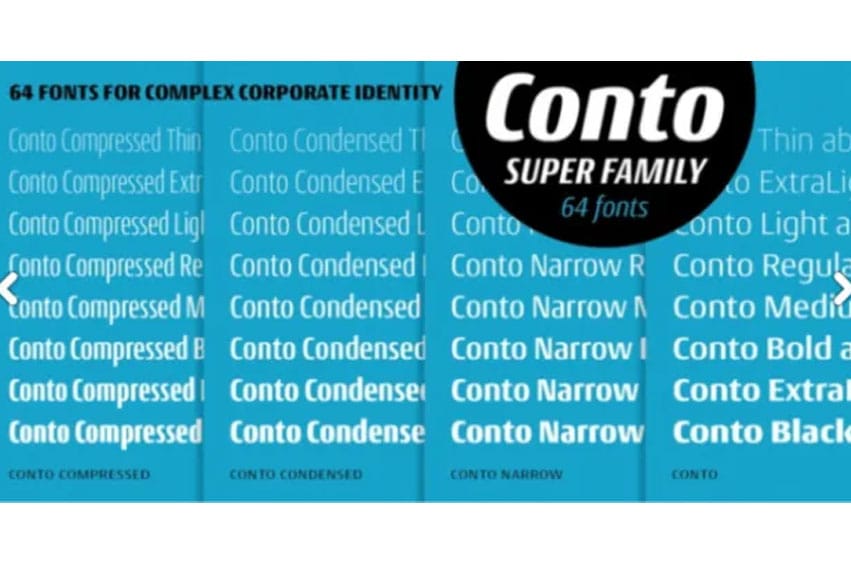
Conto Super Family Font contains 64 Fonts in total. Other Members are Conto, Conto Compressed and Conto Narrow … Conto is a clear and reduced sans serif typeface in eight weights (upright, italic). It is mainly designed for corporate identity along with the editorial design and advertising. A special set of ligatures make the fonts very useful for logo type and lettering.
The elegant Thin and the strong Black weights are working well in display typography, while the Regular, Medium and Bold weights are meant to stay well in text and tables. Main characteristic are the minimalistic and reduced lowercase shapes (a/b/d/g/m/n/p/q/r/u). Another specific feature is the rising contrast. Whereas you can not find any contrast in the Thin weight, you will find more and more contrast while climbing up to Black. Conto’s special ligatures are made for logo-types and lettering.
Therefore you find Discretionary Ligatures like ‘r_a,’ ‘e_i,’ ‘s_t_u’ or ‘r_i’ and many more!!! Try the OT-feature ss01. Maybe there is something nice for your next logo. Conto contains around 880 glyphs and supports all latin-script based languages. It also includes small-caps and all kind of figures you need for serious typography. Of course you have case and small-cap sensitive punctuation and fractions up to 1/9 (oneninth). Nils Thomsen started to draw Conto in 2008.
It is inspired by the lonely streets of north scandinavia and the dark forrest around. While cycling through the nature and drinking water from rivers the idea of a simple geometric typeface was born. In remembrance of Peter Bruhn! Actually Conto should be published at the fountain foundry. During my studies in The Hague I interviewed Peter. The interview is collected in the book 158 answers. Towards this we had a nice exchange about my typeface. After some corrections he decided to release Conto. Thanks you for your help, Peter !!!